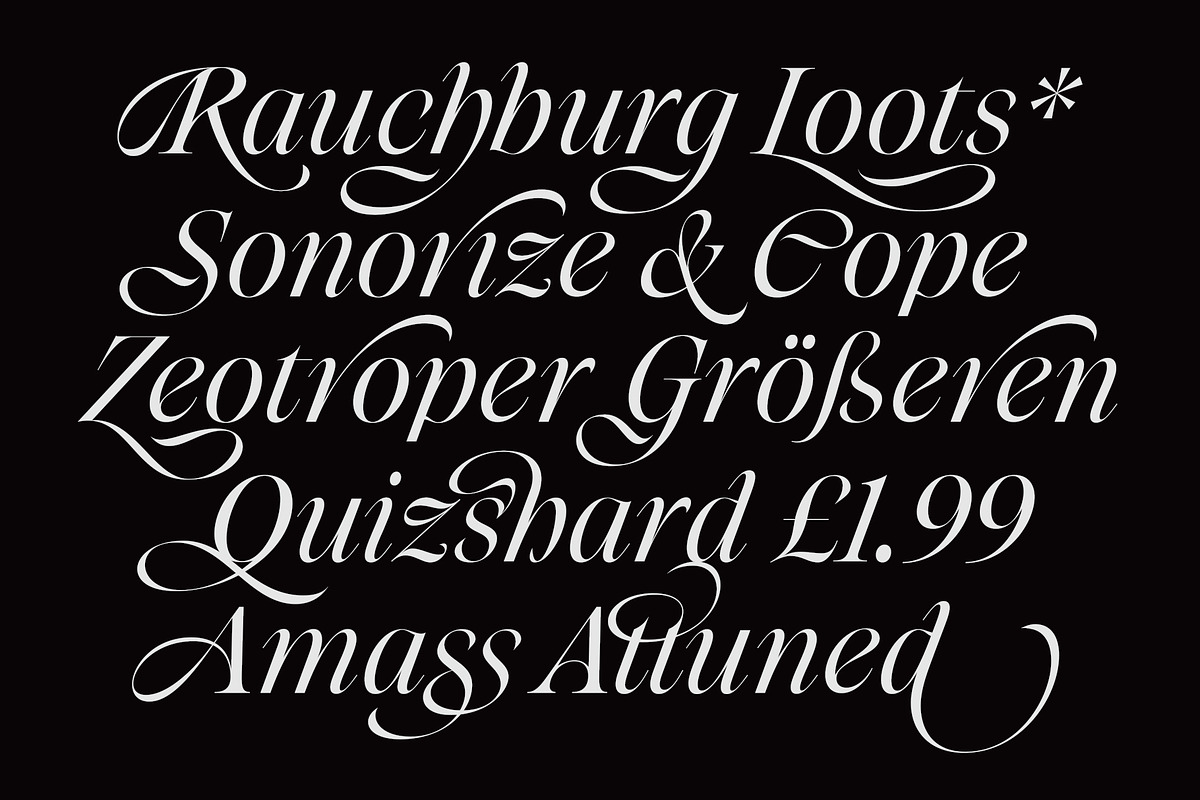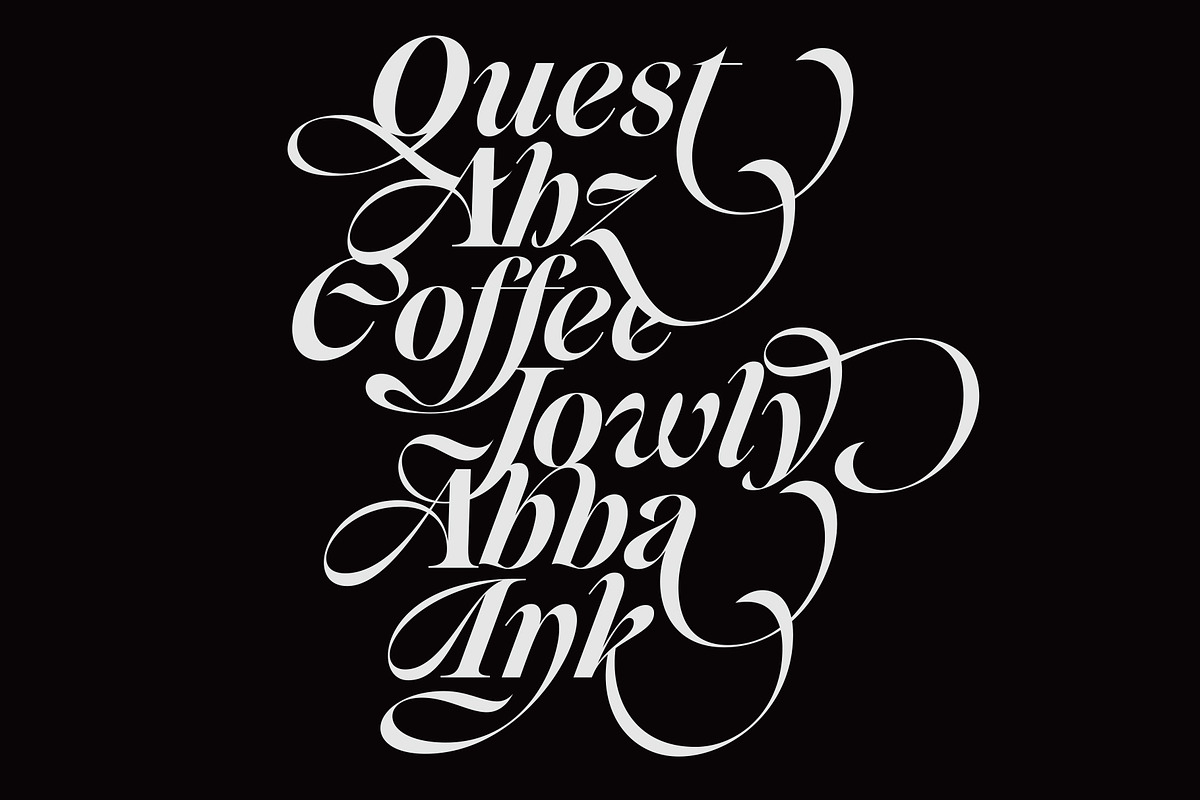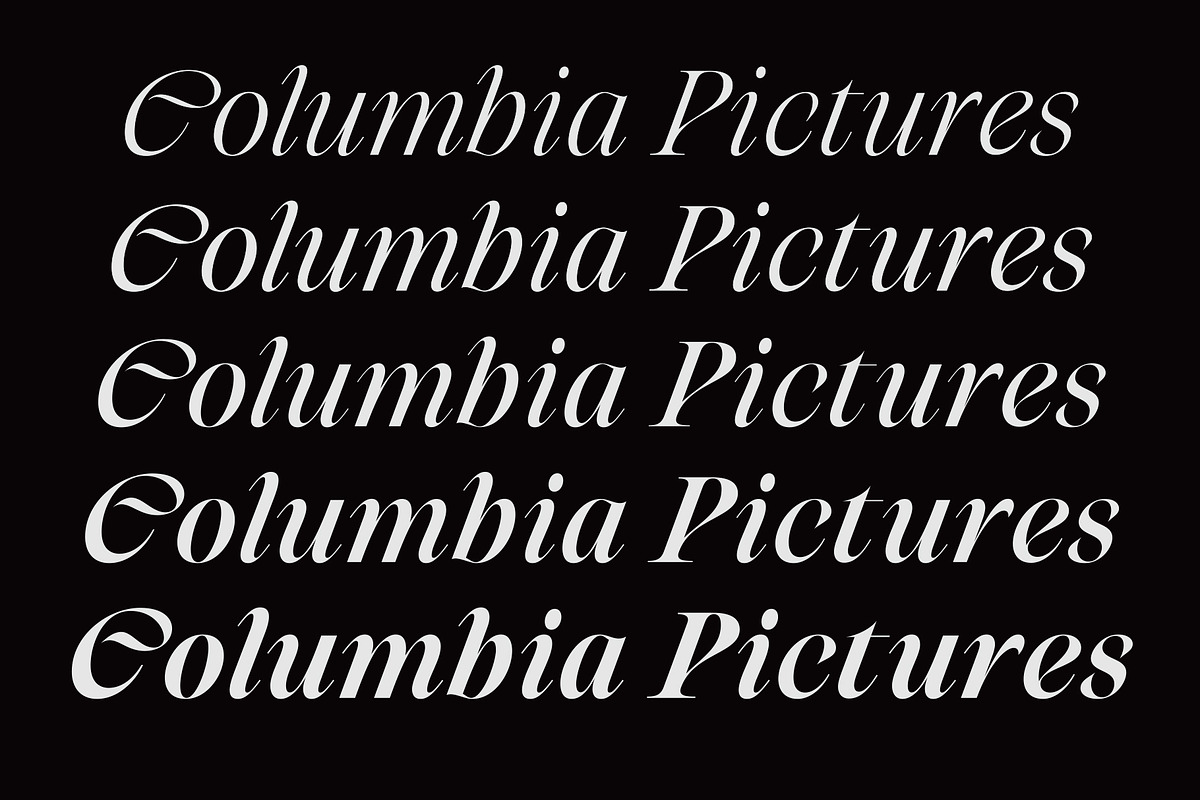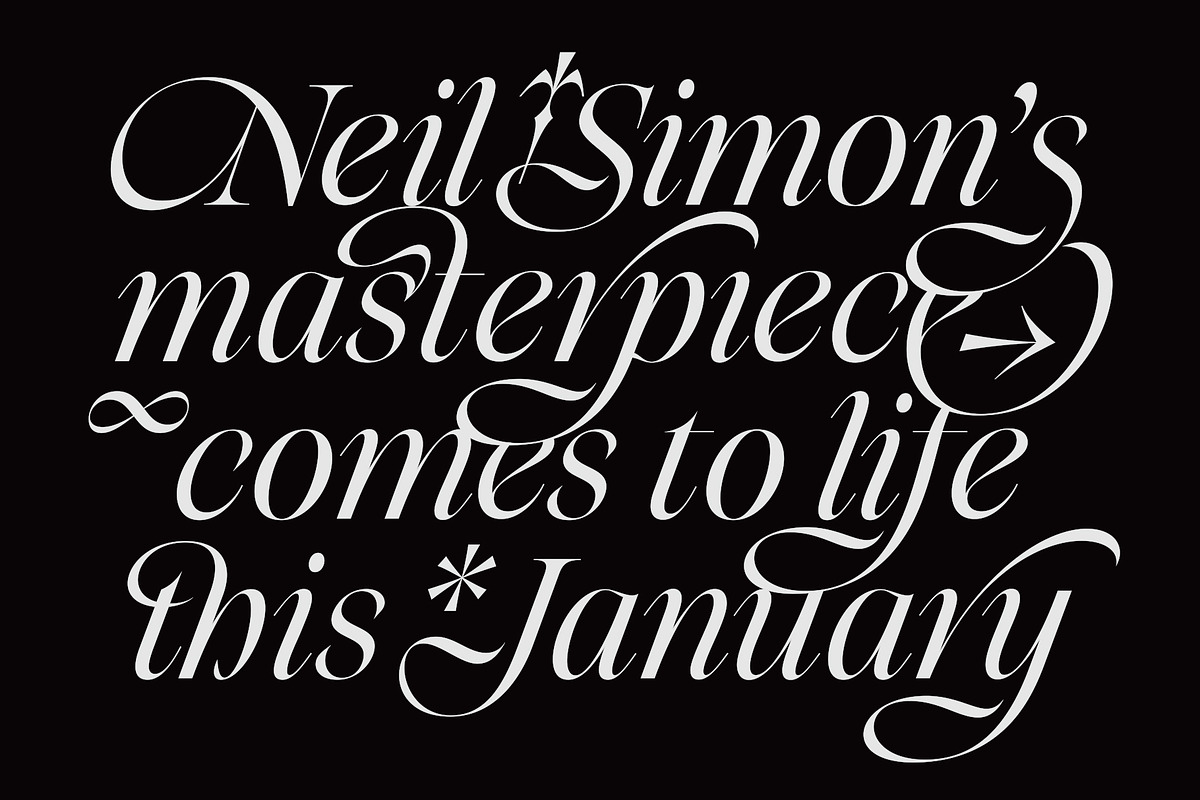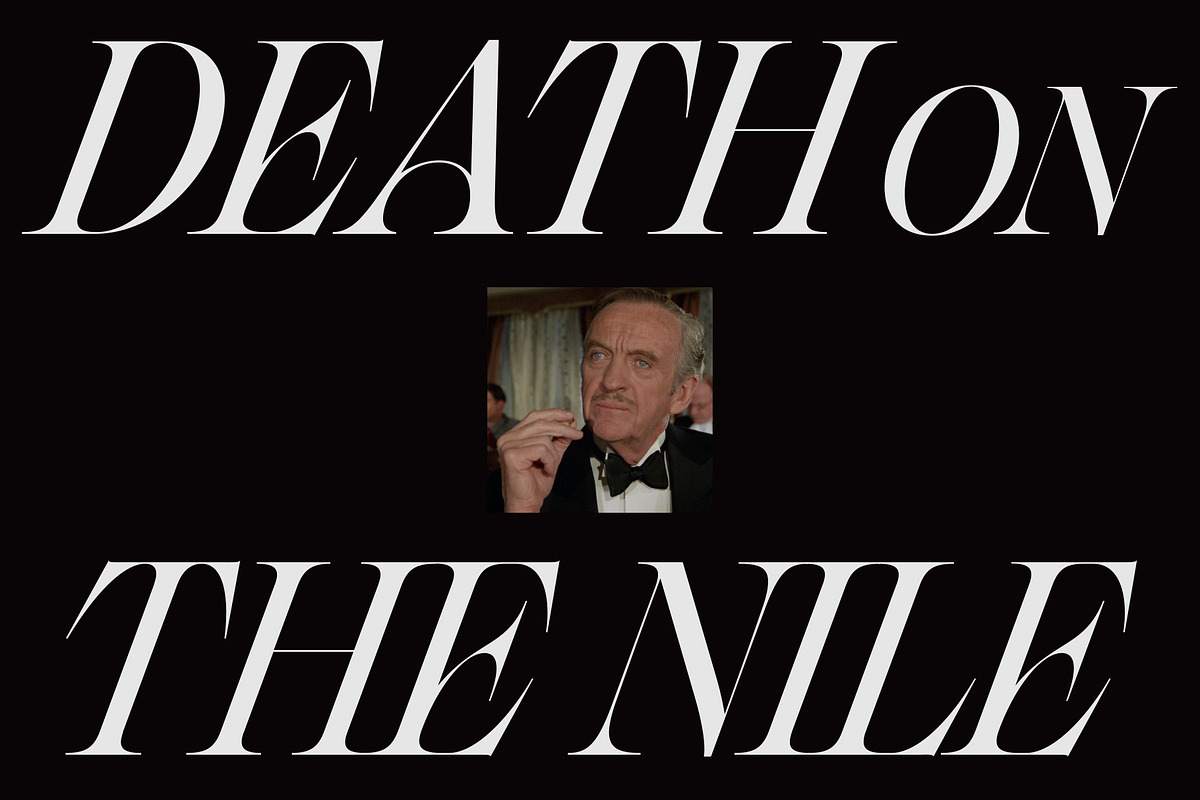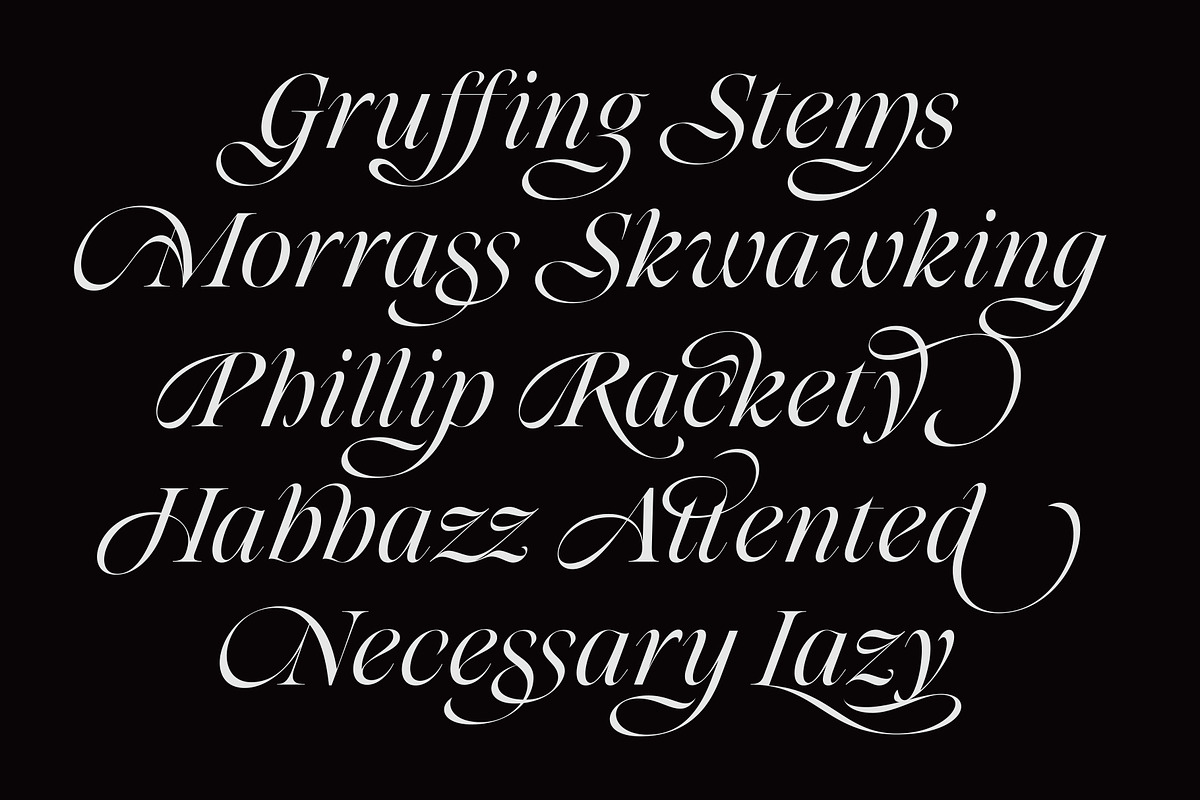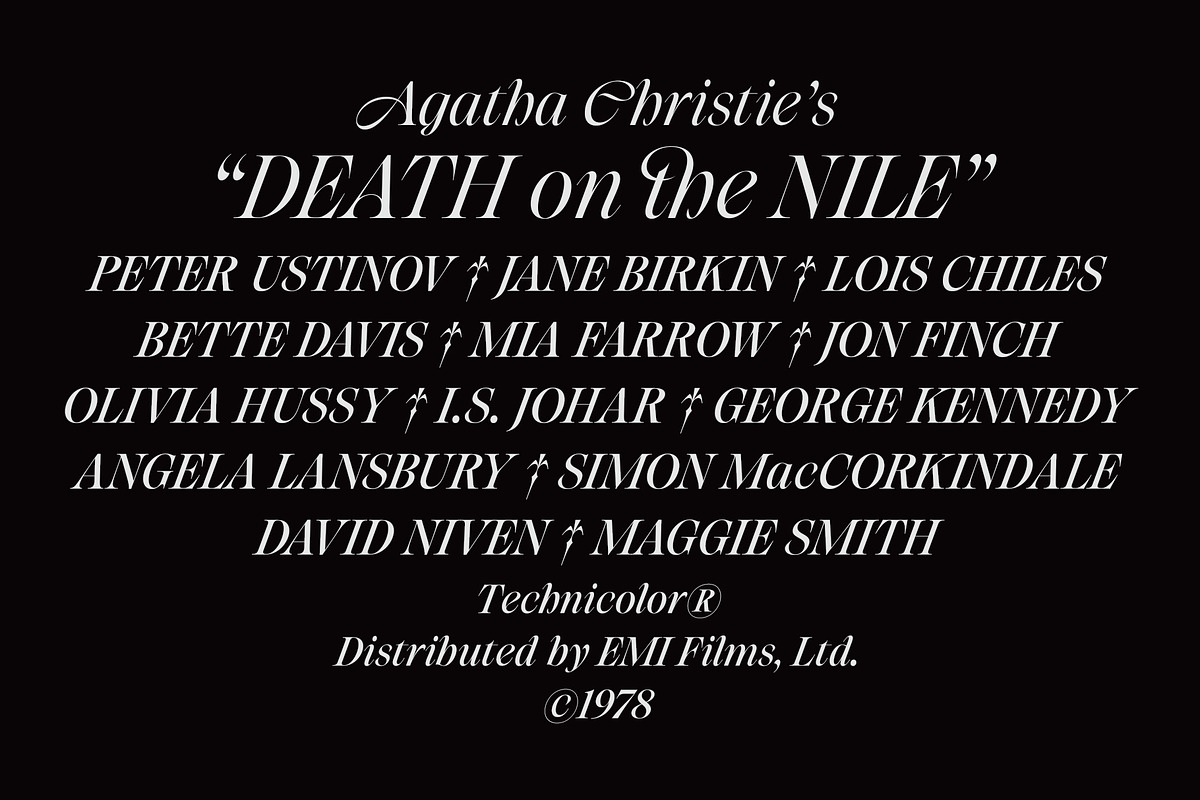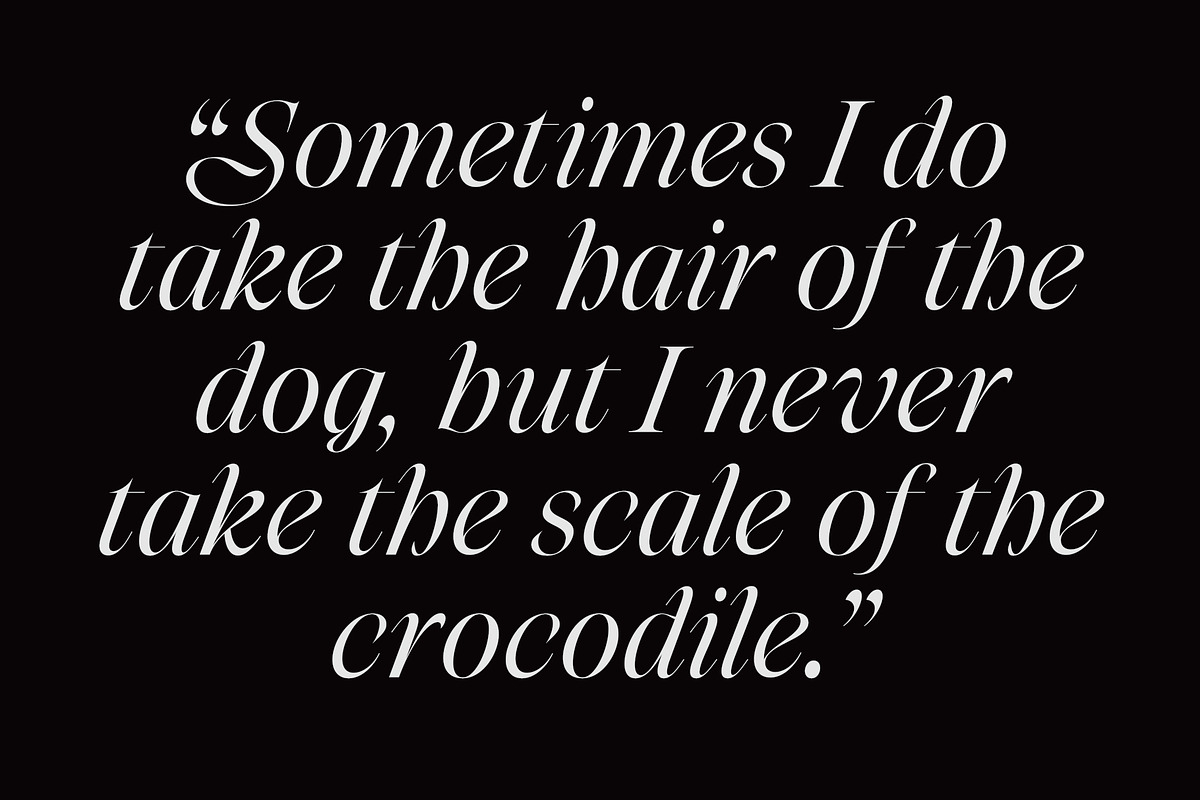
Niven Italic
A display serif italic in 5 weights inspired by the movies of David Niven. Check out a sample PDF, here: https://www.dropbox.com/scl/fi/hgel0ss8zl8muigqsdcha/niven.pdf?rlkey=ov3gyb3dryfqlnr3tscx2u1fj&dl=0 Check my store for the regular version.